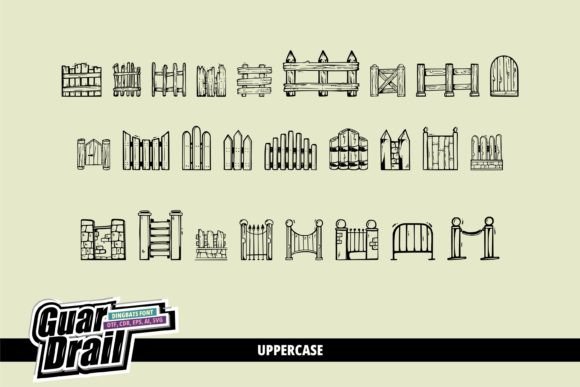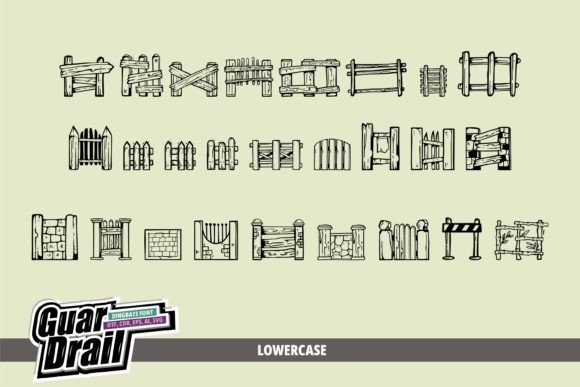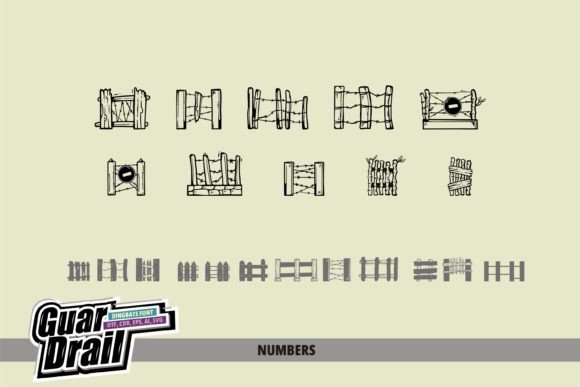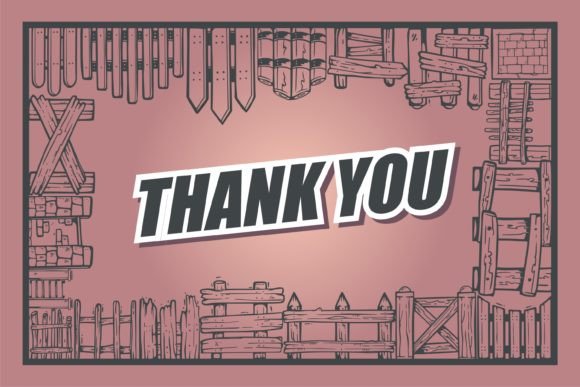
Introduction to Guardrail Font
Guardrail is a playful dingbat font.
These are hand-drawn dingbats that can be used for a variety of purposes, be it decorating designs or decorating plans Add them to your creative ideas and make your designs outstanding.
Guardrail Font offers exceptional quality and versatility, making it a valuable addition to your design toolkit. Whether you’re creating for personal projects or commercial use, Guardrail Font delivers professional results.